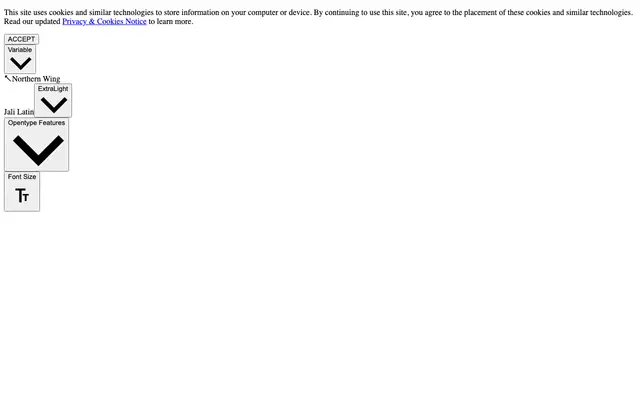
Jali Latin
A humanist sans designed for wayfinding, combining Latin, Arabic and Greek scripts in a single unified family with a clear, warm voice across 16 styles.
Designed by Mohamad Dakak and reviewed by Gerry Leonidas, Jali began as a graduation project addressing the shortage of readable Arabic typefaces before expanding into a full multi-script family. Low-contrast strokes, ample counters and carefully distinguished letterforms make it well suited to signage, transport environments and demanding editorial settings. The Latin cut covers 332 languages across 16 upright and italic styles, and the family earned a TDC Certificate in Typographic Excellence and a Granshan 1st Prize, both in 2019.
Jali is explicitly described as a humanist sans serif, with low-contrast strokes, ample counters and a warm, legible voice suited to wayfinding and demanding typographic environments.